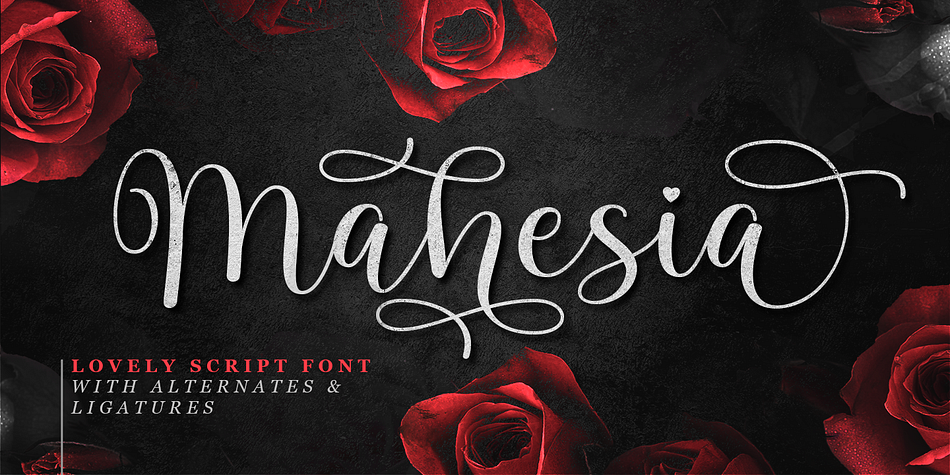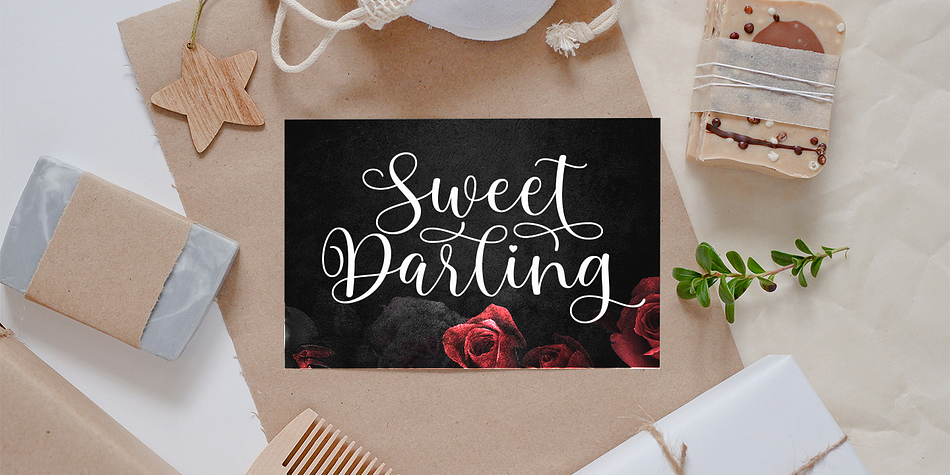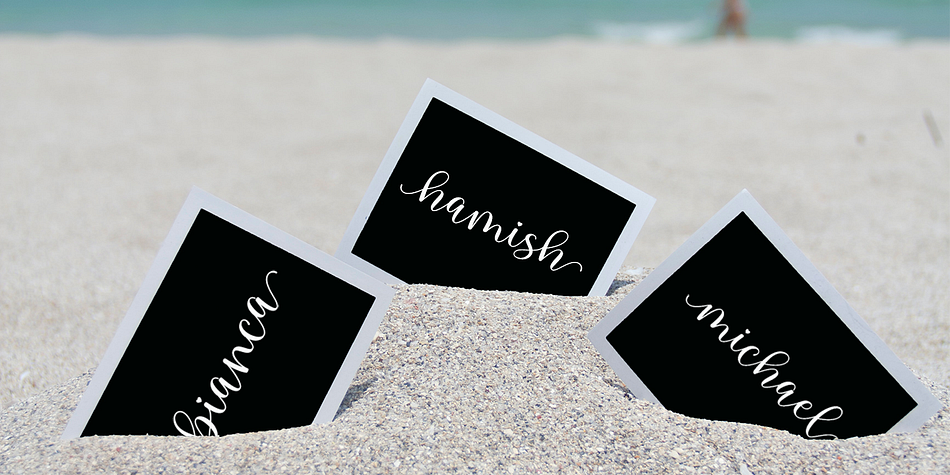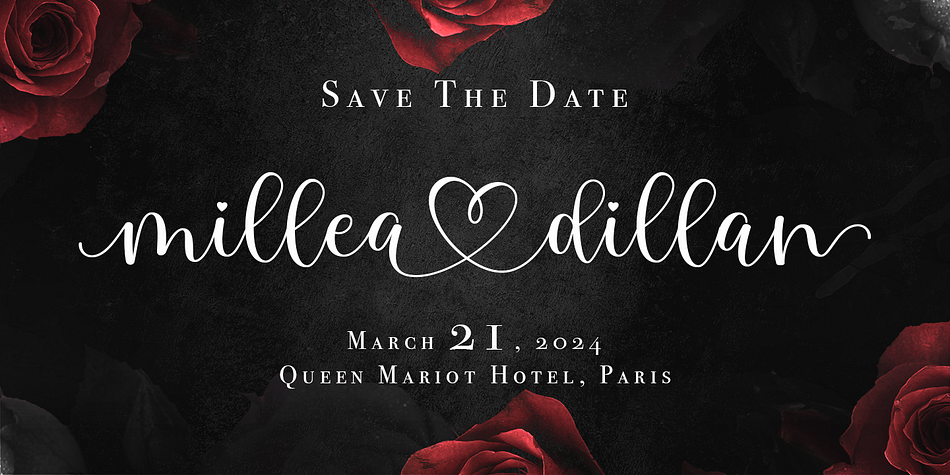
Mahesia
Mahesia is a script font family published by Fargun Studio.
Mahesia Script! A new fresh and modern hand lettered font with decorative characters and a dancing baseline. Mahesia Script was inspired by clean handwriting with a natural flow, and it features fabulous beginning and ending lowercase swashes as well as lowercase heart swashes. It is perfect for a wide range of designs, including wedding stationery, Instagram quotes, modern logos, packaging, websites, and more. So beautiful on invitation like handicraft, greeting cards, branding materials, business cards, quotes, posters, and more design concepts.
Unique Alternates & ligatures
Stylistic sets